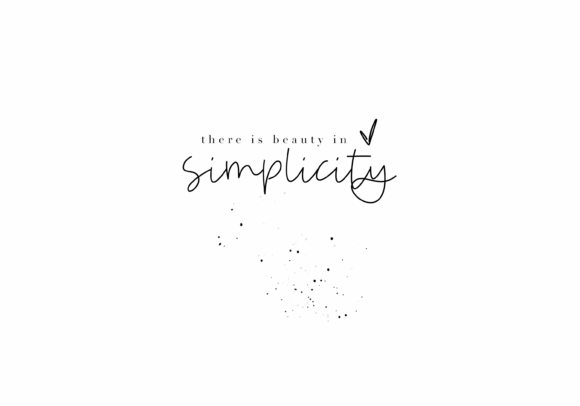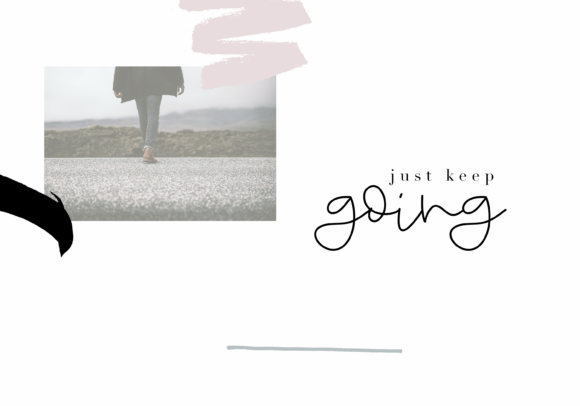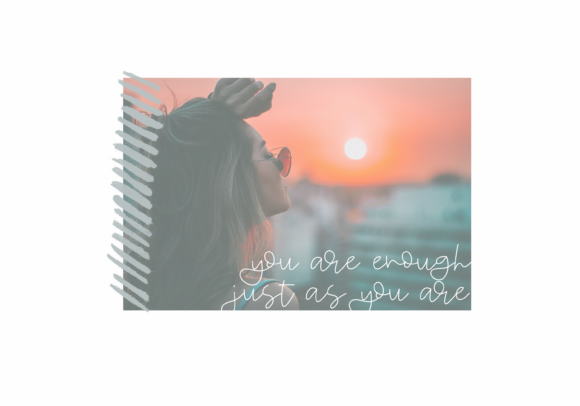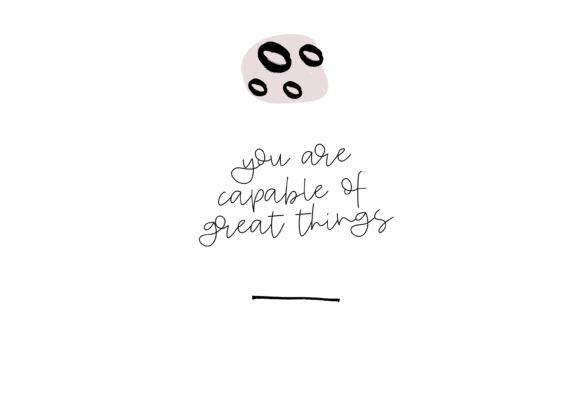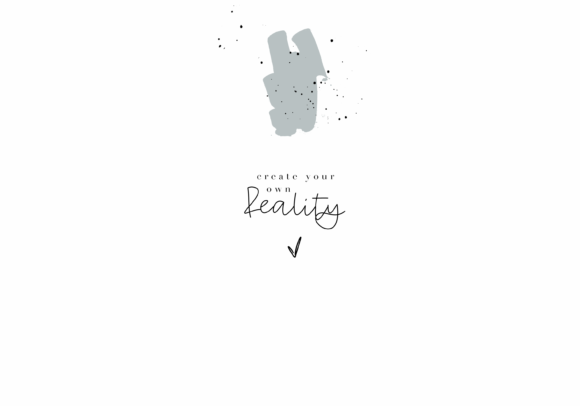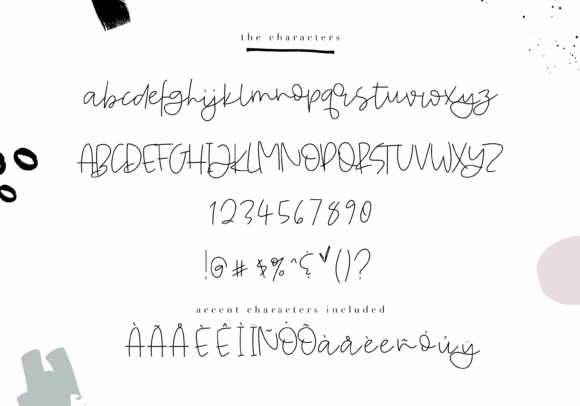
Introducing Absolutely Font: Elevate Your Design Projects with a Unique Twist
Are you tired of using the same old fonts in your design projects? Look no further! Absolutely Font is a striking handwritten font that brings a fresh and unique twist to the world of typography. With its distinctive style, Absolutely Font is sure to effortlessly elevate any design project, making it a must-have for designers and crafters alike.
The Story Behind Absolutely Font
Absolutely Font is a carefully crafted handwritten font that is designed to make a statement. Its creator, [designer name], drew inspiration from various sources, including classic calligraphy and modern street art. The result is a font that is both elegant and edgy, perfect for designers who want to add a touch of personality to their work.
What Makes Absolutely Font So Special?
So, what sets Absolutely Font apart from other fonts on the market? Here are just a few of its standout features:
- Unique Twist: Absolutely Font boasts a distinctive twist that sets it apart from other handwritten fonts. Its letters are carefully crafted to create a sense of movement and fluidity, making it perfect for designs that require a touch of dynamism.
- Handwritten Charm: Despite its uniqueness, Absolutely Font still retains the charm of a handwritten font. Its imperfections and quirks give it a personal touch that is sure to resonate with designers and their audiences.
- Versatility: Absolutely Font is incredibly versatile, making it suitable for a wide range of design projects. From branding and advertising to packaging and digital media, this font can be used in various contexts to add a touch of elegance and sophistication.
How to Use Absolutely Font in Your Design Projects
Using Absolutely Font in your design projects is easy! Here are a few tips to get you started:
- Pair it with Other Fonts: Absolutely Font pairs well with other fonts, especially sans-serif fonts like Arial or Helvetica. Experiment with different combinations to find the perfect balance for your design.
- Use it for Headings: Absolutely Font is perfect for headings and titles, where its unique twist can really shine. Use it to create eye-catching headlines that grab attention and draw the reader in.
- Experiment with Colors: Absolutely Font looks great in a variety of colors, from bold and bright to subtle and muted. Experiment with different colors to find the perfect shade for your design.
Why Designers and Crafters Love Absolutely Font
Absolutely Font has quickly become a favorite among designers and crafters, and for good reason. Here are just a few reasons why:
- Easy to Read: Despite its unique twist, Absolutely Font is still easy to read, making it perfect for designs that require a touch of personality without sacrificing legibility.
- Highly Customizable: Absolutely Font comes with a range of customization options, allowing designers to tailor it to their specific needs.
- Constantly Updated: The creator of Absolutely Font is committed to constantly updating and improving the font, ensuring that it stays relevant and fresh.
| Font Name | Absolutely Font |
| Author | KA Designs |
In conclusion, Absolutely Font is a striking handwritten font with a unique twist that is sure to elevate any design project. With its distinctive style, versatility, and ease of use, it’s no wonder that designers and crafters are falling in love with this font. Whether you’re looking to add a touch of elegance to your branding or create eye-catching headlines, Absolutely Font is the perfect choice.